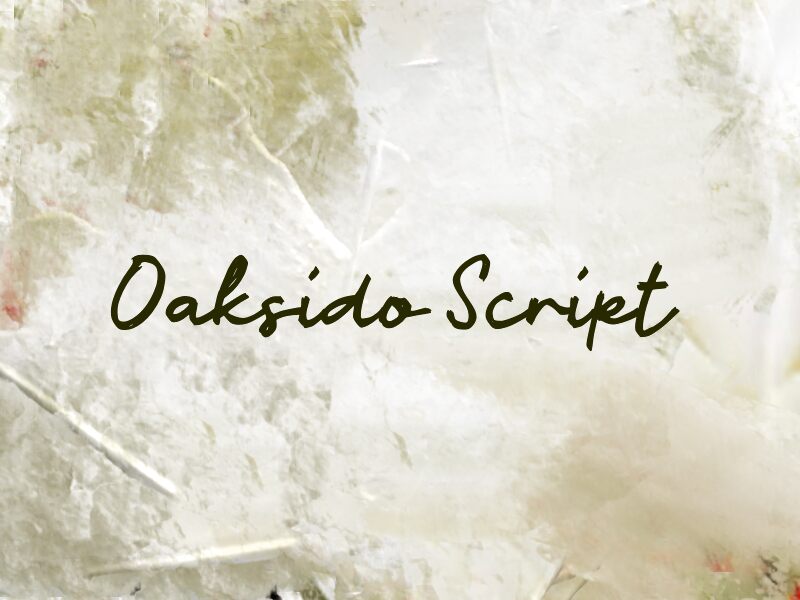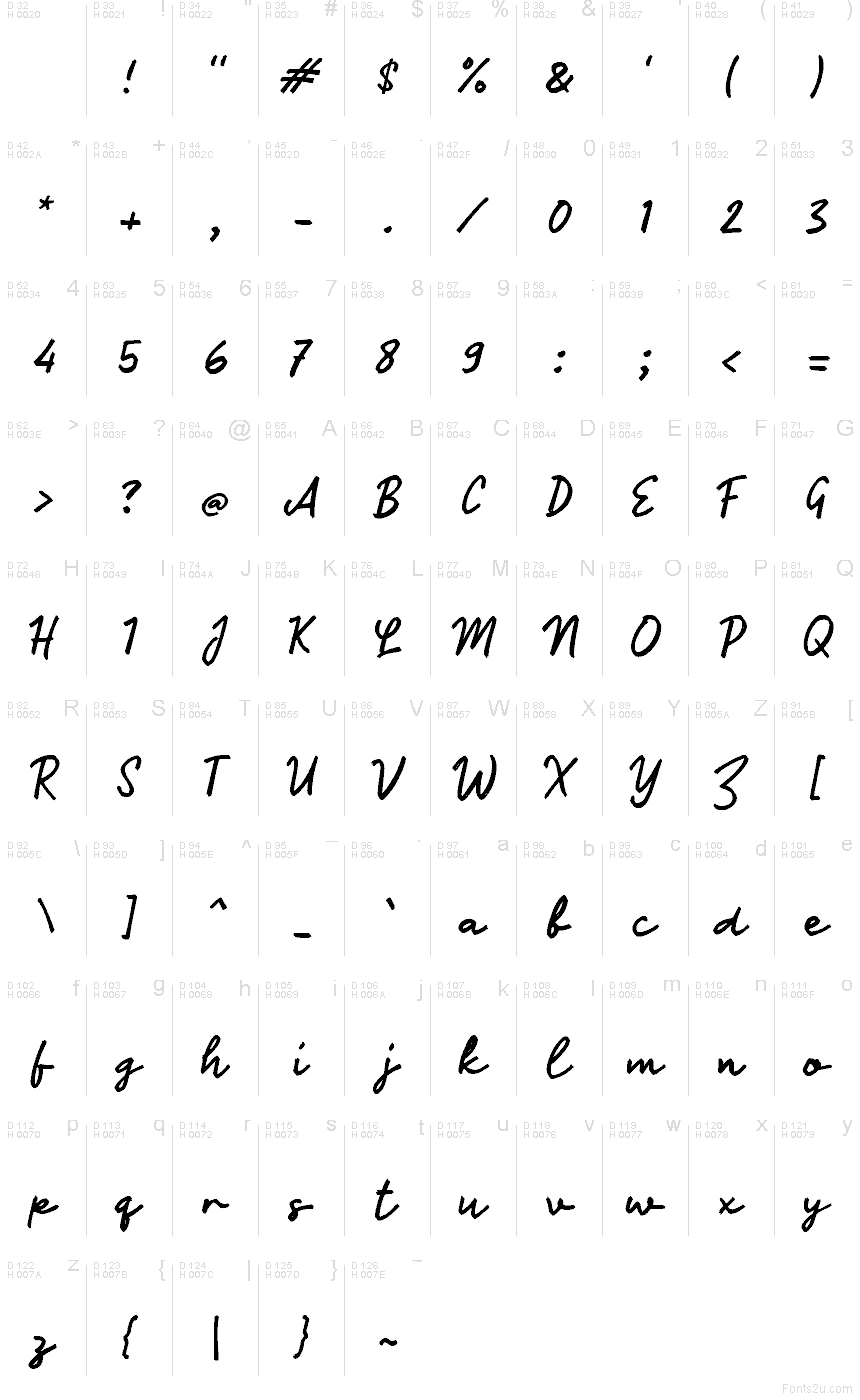
Oaksido Script
Oaksido Script font by wep is a free handwritten script typeface that looks like it was dashed off with a slightly dry brush pen. Letters tilt forward with an easy, relaxed slant, while the inky, textured strokes keep it from feeling too polished or stiff. The spacing stays surprisingly tidy, so even at smaller sizes the words feel casual and human, not messy.
Using Oaksido Script, you get that candid, jot-it-down energy that works beautifully for signatures, lifestyle branding, quotes, packaging, social posts, and handmade product labels. This free font shines when you let it breathe—set it larger for headlines, then pair it with a clean sans serif for supporting text to keep the gritty script texture in the spotlight.